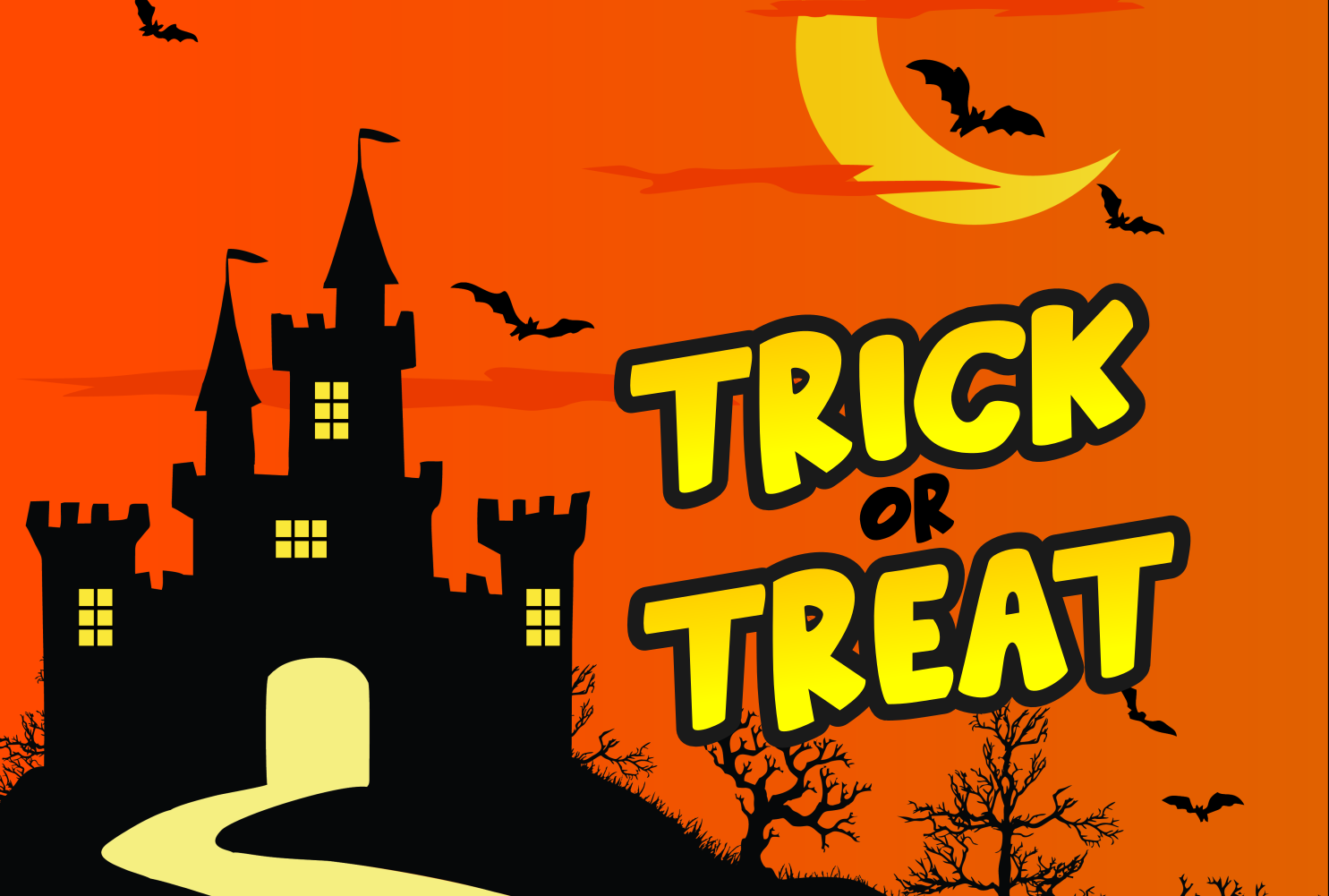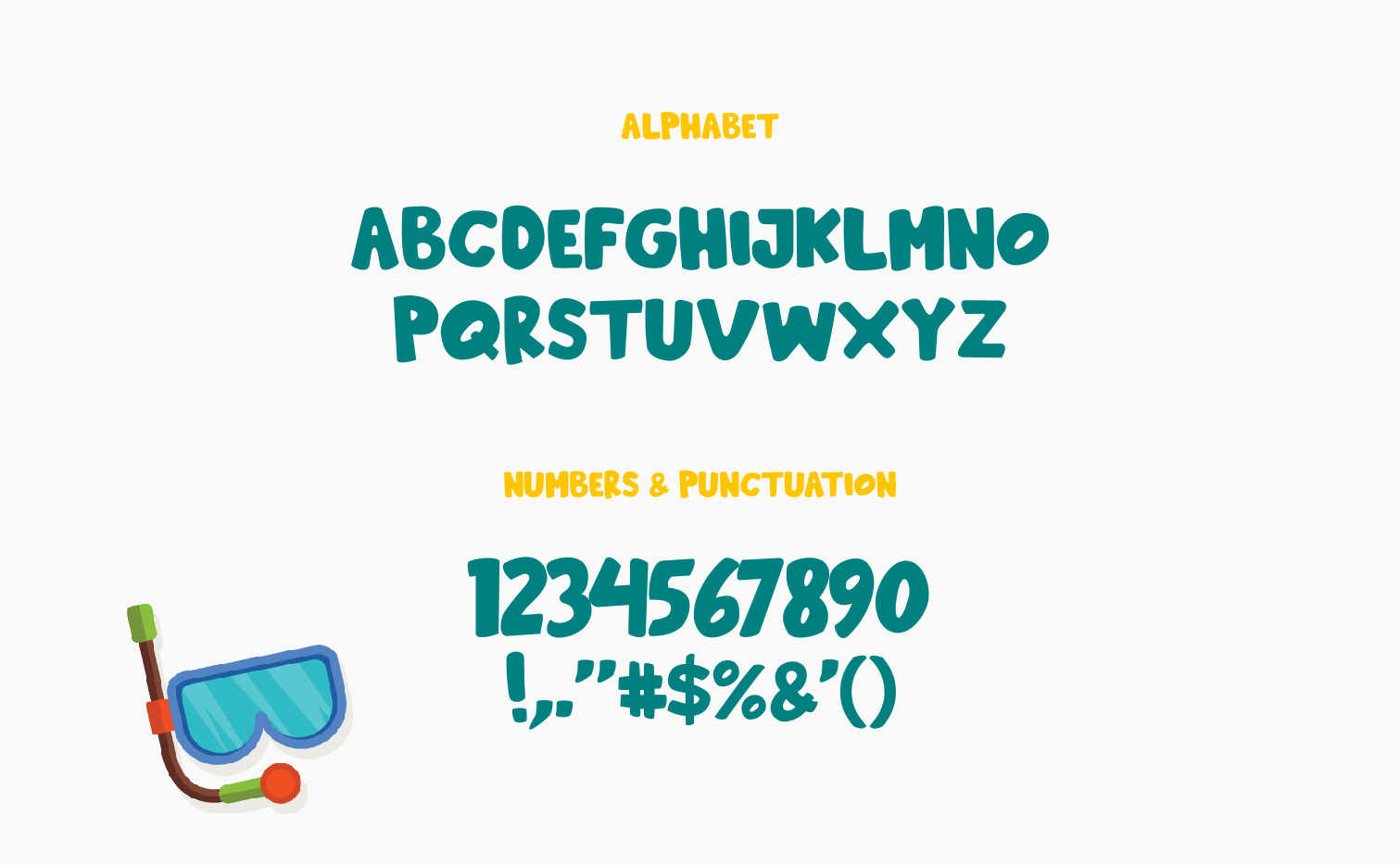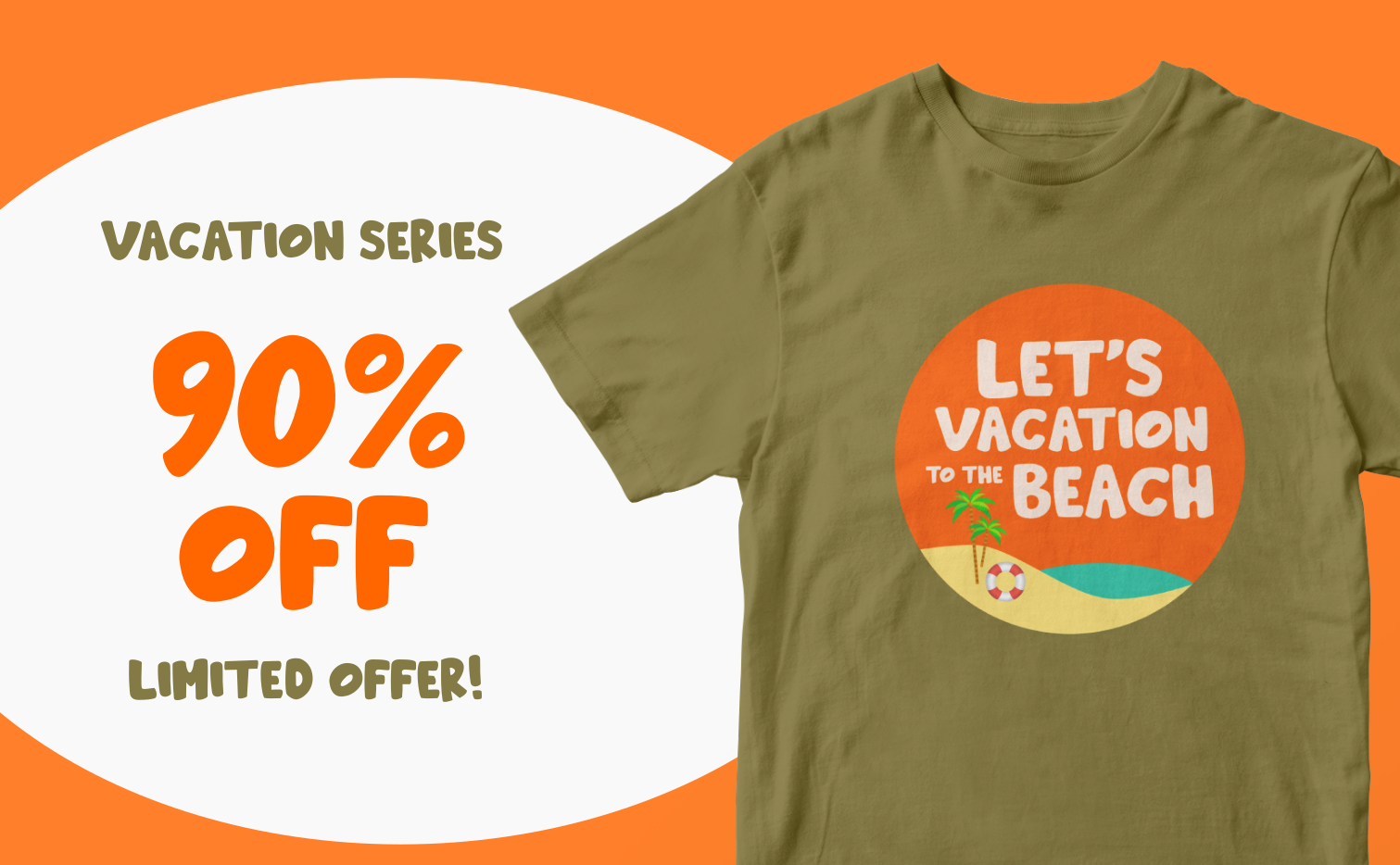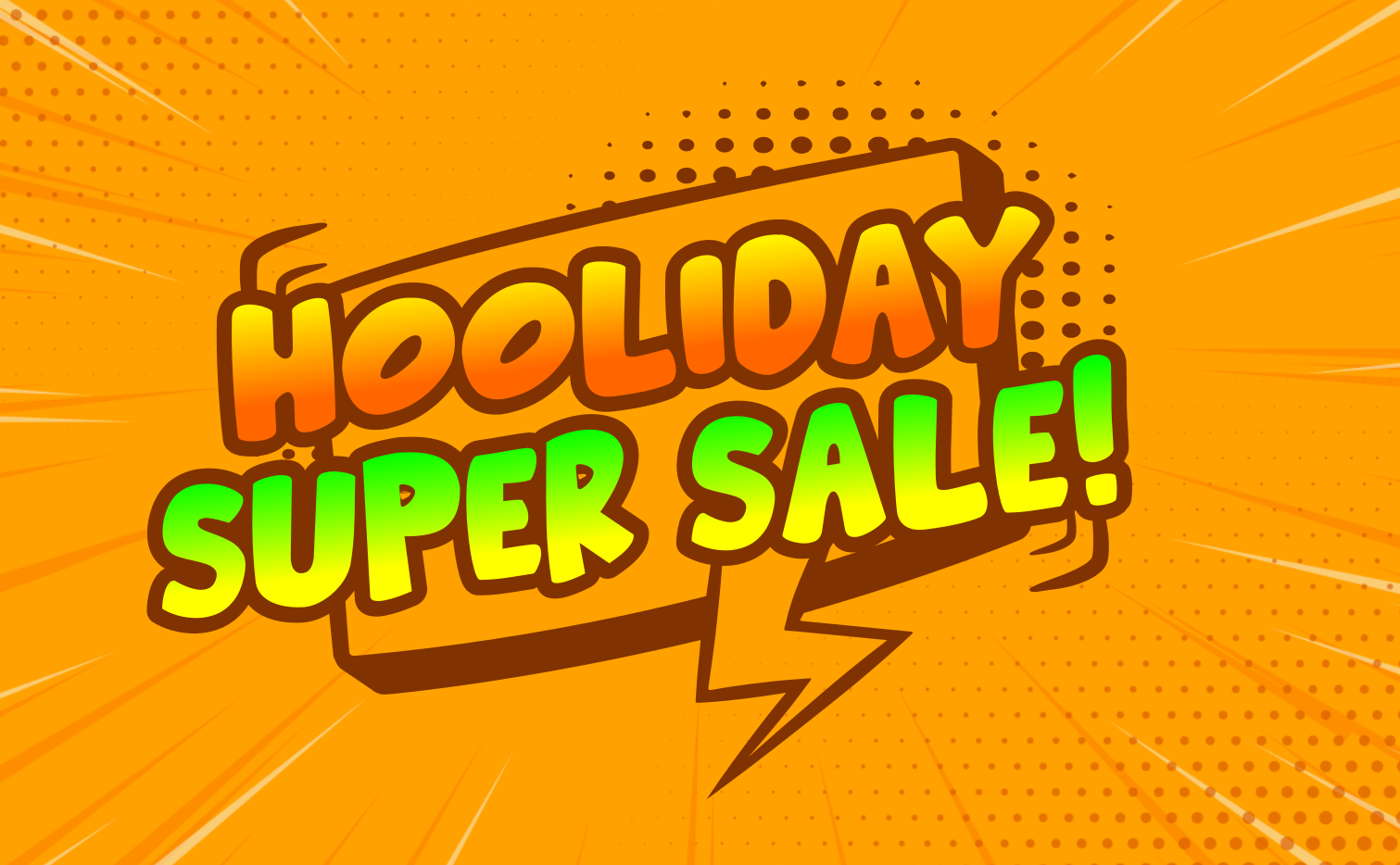
Beachday Free Font
Beachday Free Font is a font inspired by vacation. Beachday is a super fun and playful display font with a whimsical feel! Beachday is ideal for apparel, pamphlet, quotes, product packaging, or anything which needs a fun display. This free typeface was designed by a talented Rahagita. If you like it don’t forget to check out the full version.